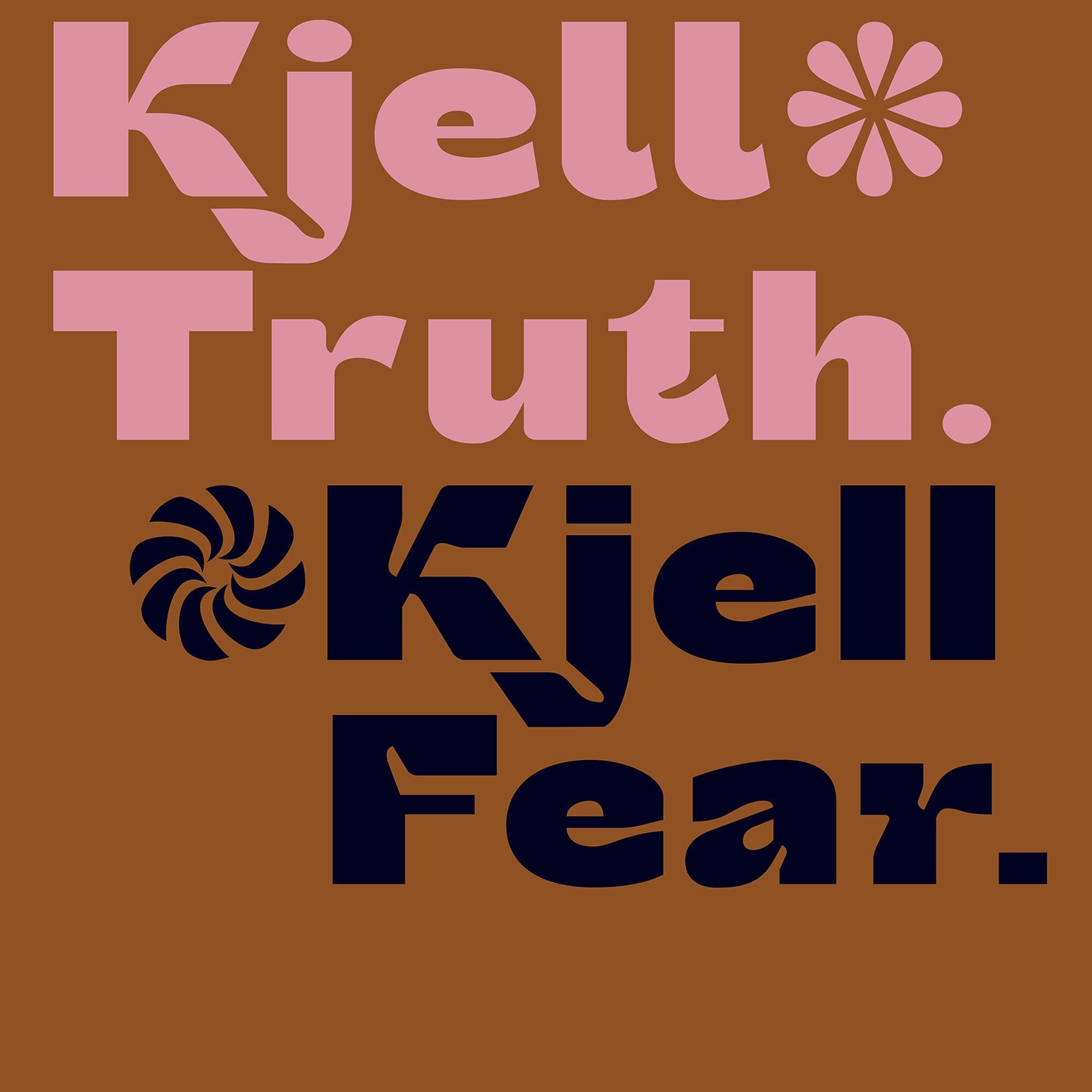
Kjell typeface - Synthesis of opposites | Mindsparkle Mag
Armin Brenner & Markus John designed Kjell typeface - Synthesis of opposites. Kjell is a conceptual display typeface balancing between its two extremes...